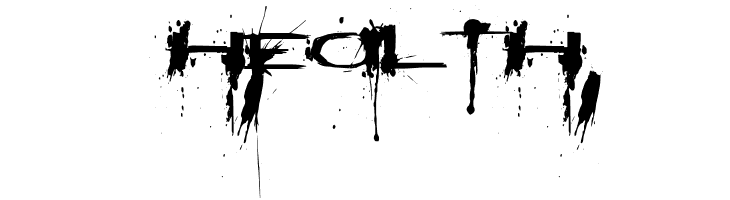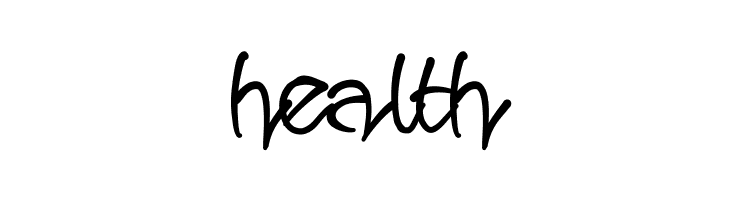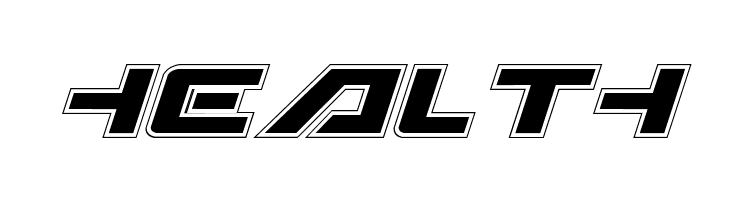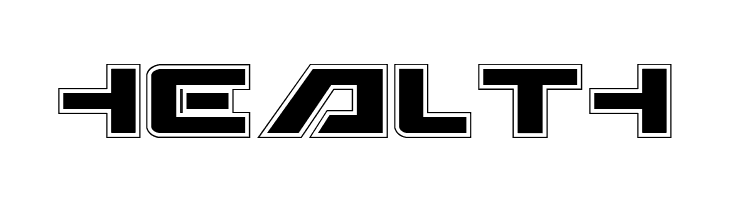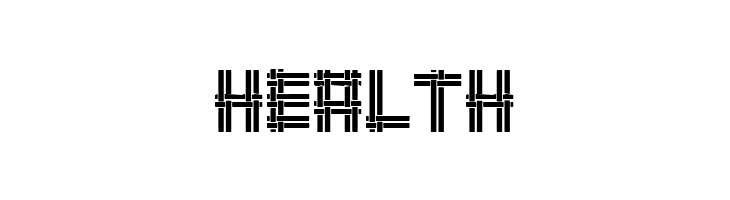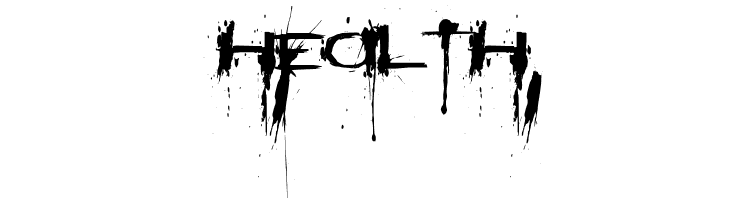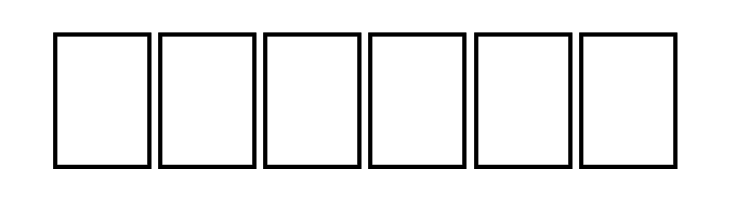
( Fonts by Mike Wolf )
A bold, decorative font with a woven, grid-like design.
( Fonts by Mans Greback - www.mawns.com )
A dynamic, expressive font with flowing lines and intricate swirls.
( Fonts by Iconian Fonts - Daniel Zadorozny )
A bold, futuristic font with geometric shapes and tight spacing.
( Fonts by Iconian Fonts - Daniel Zadorozny )
A bold, italicized font with a futuristic and geometric design.
( Fonts by David Kerkhoff - www.hanodedphotography.com )
A bold, grungy font with splattered, chaotic elements for an edgy look.
( Fonts by David Kerkhoff - www.hanodedphotography.com )
A distressed, grungy font with splatter and drip effects for an edgy look.
A whimsical decorative font with winter-themed illustrations.